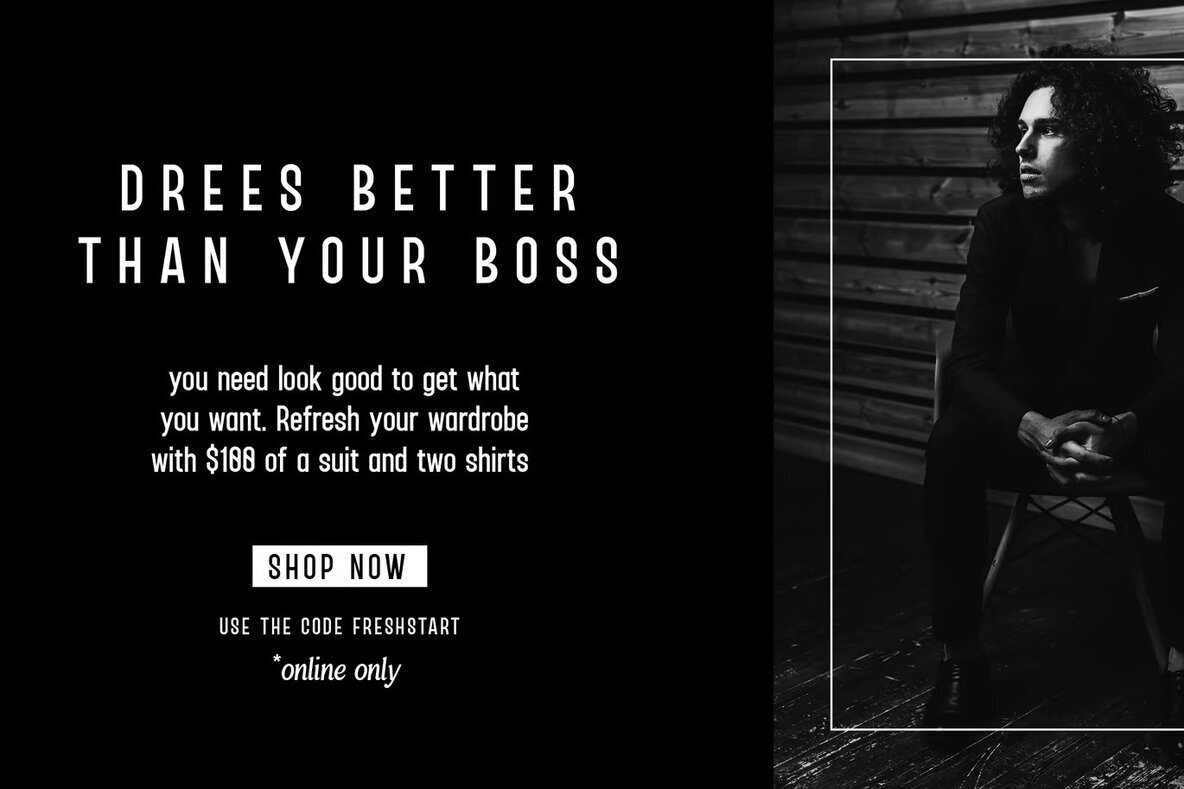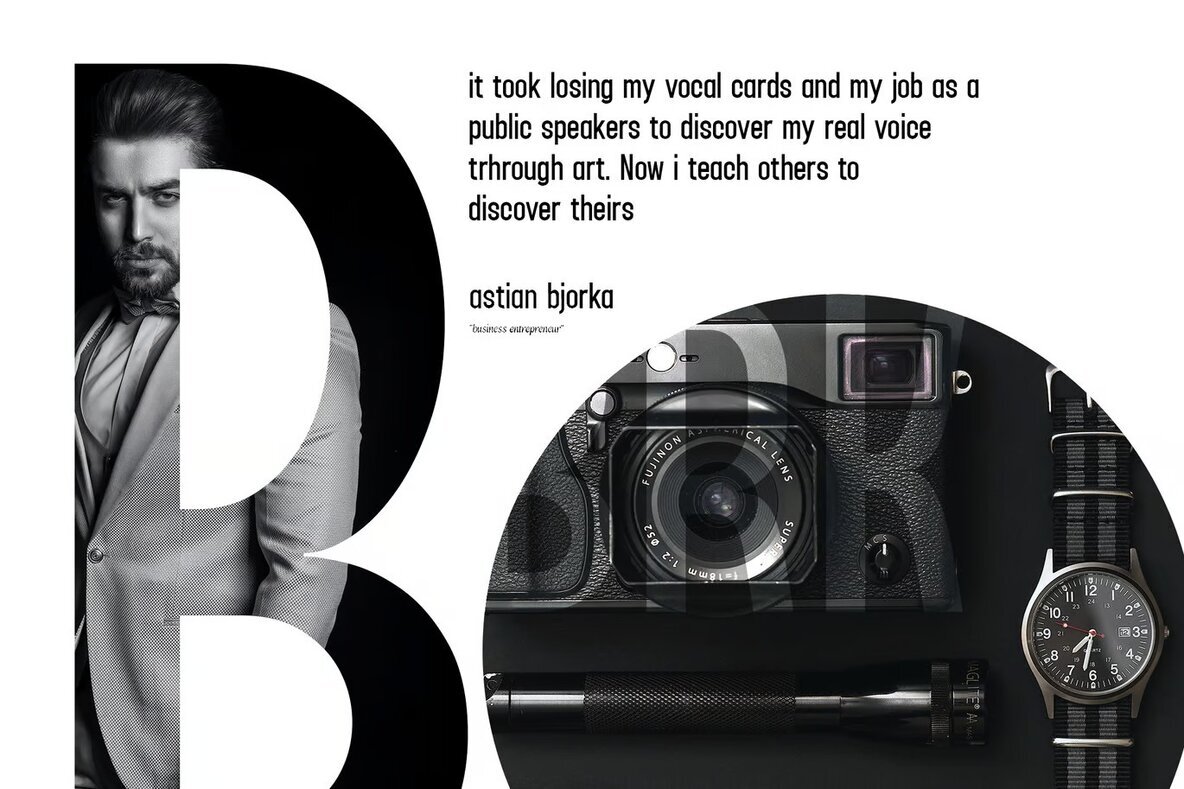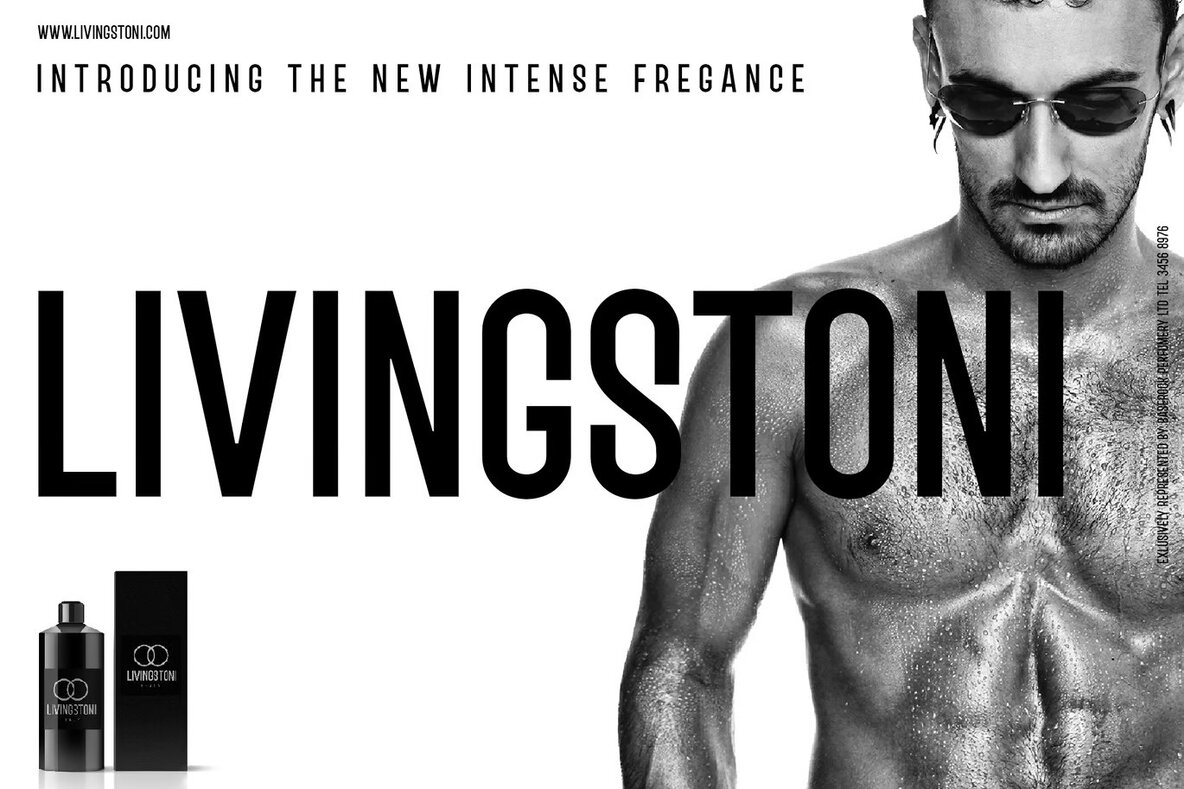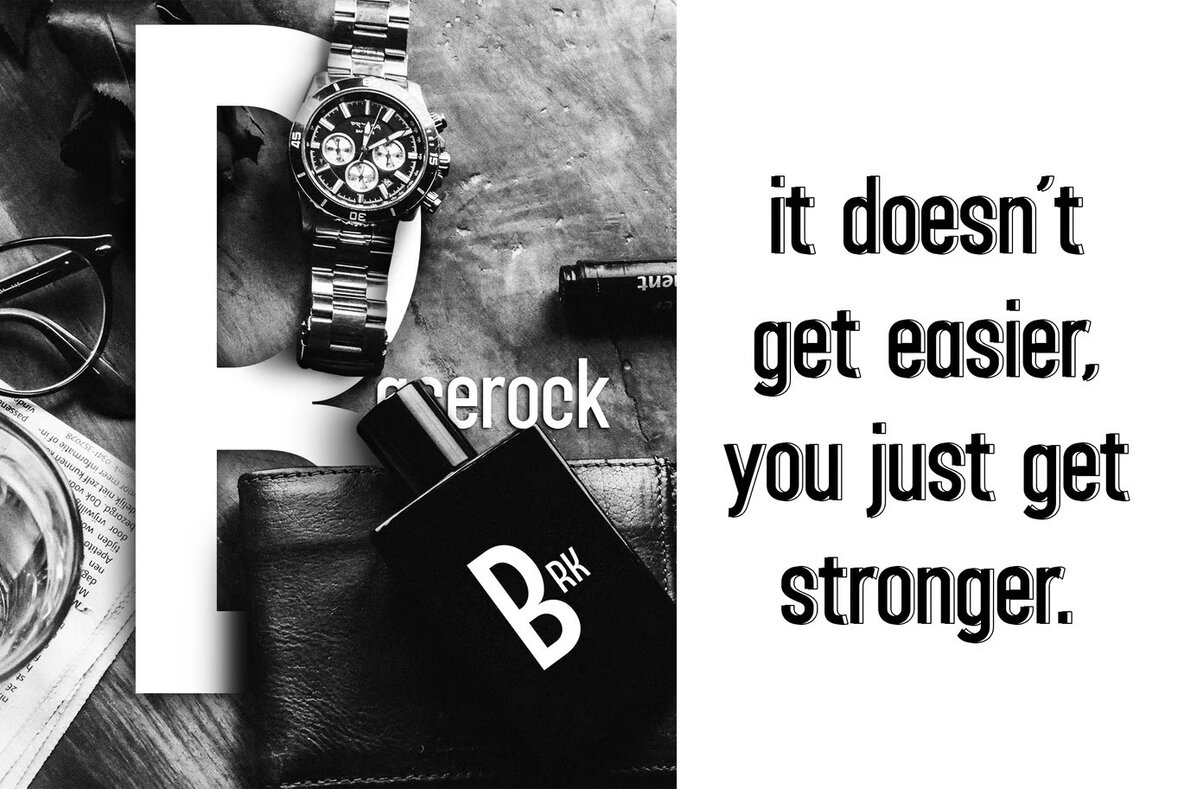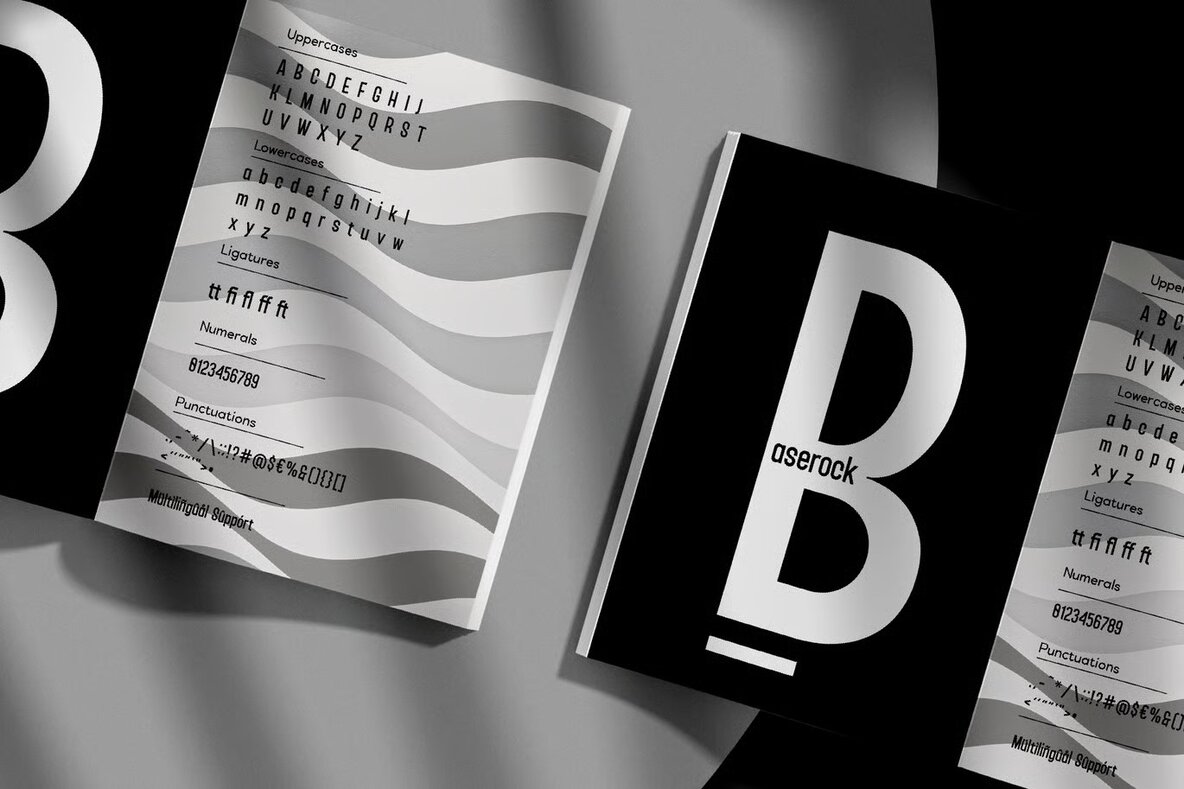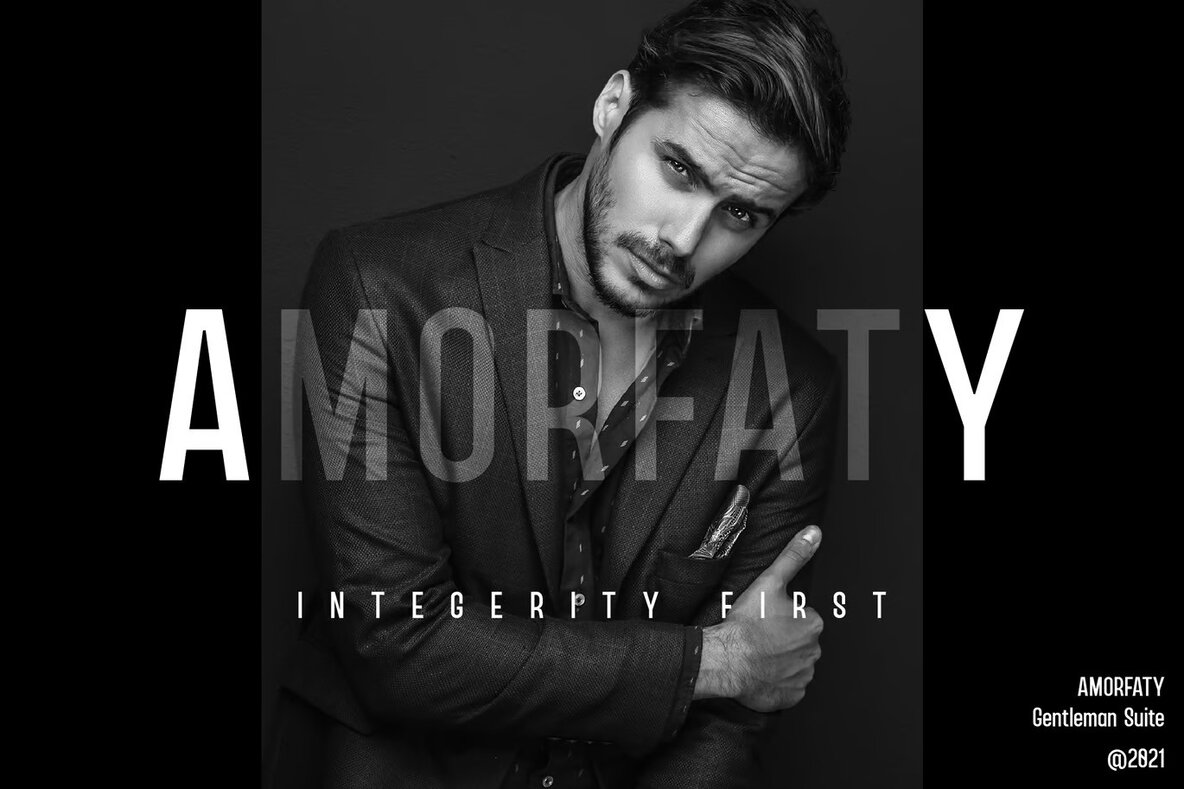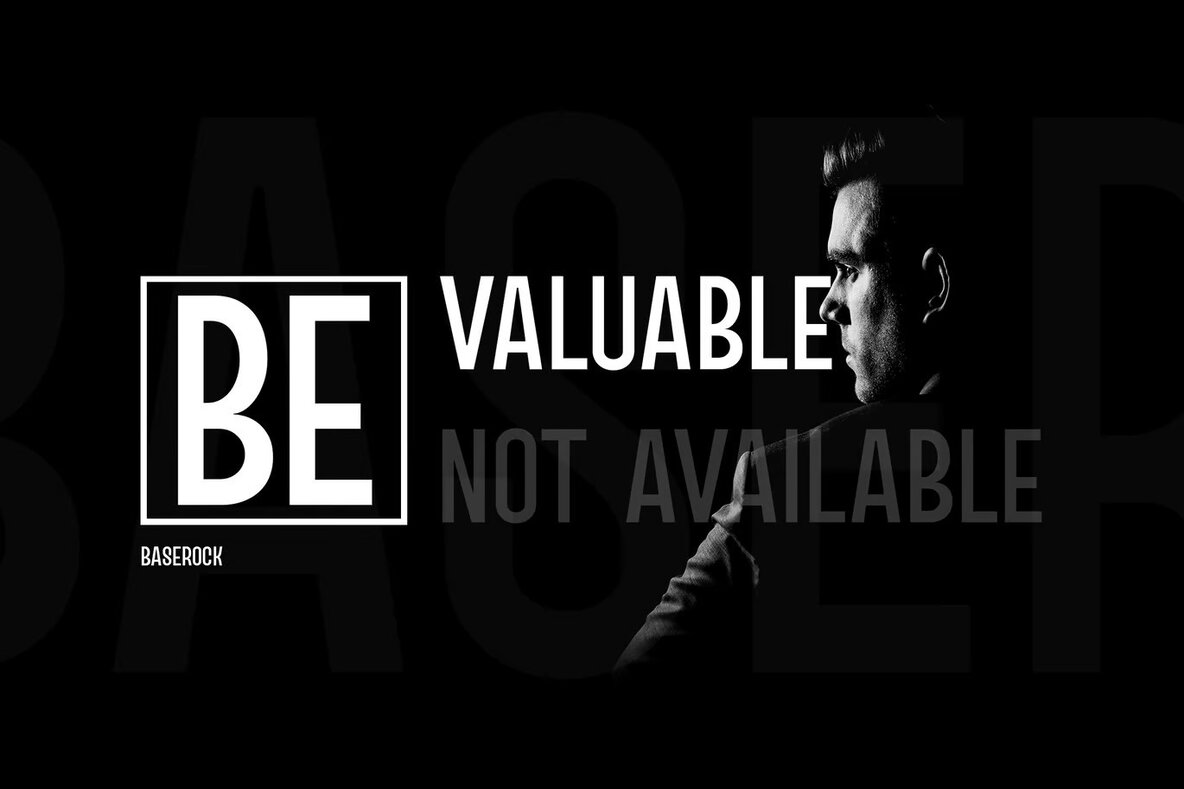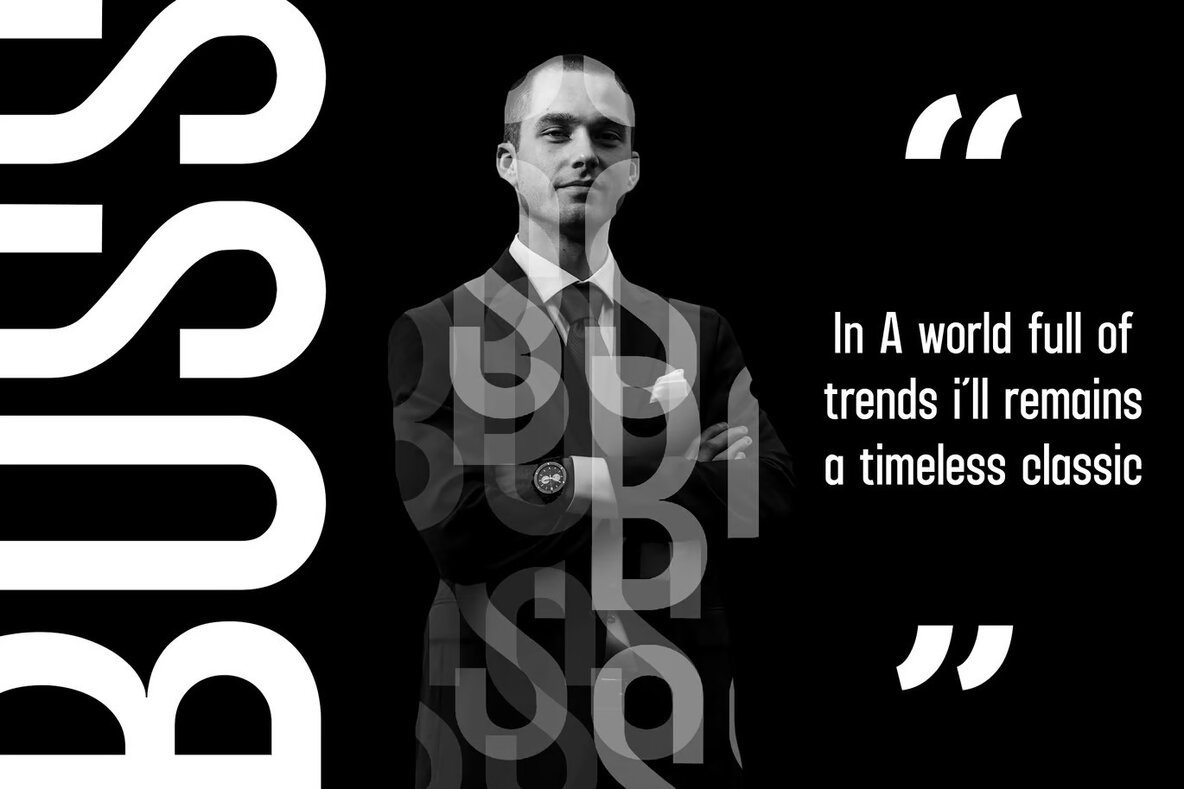
Baserock Font
Baserock Regular
Baserock, a bold condensed modern sans serif font, is an ideal choice for a variety of design projects. Its sleek and compact structure makes it suitable for logo branding, editorial design, and stationery, bringing a contemporary edge to creative works. From sports and fashion to gaming and blog design, Baserock enhances visual appeal with its distinctive style. Perfect for modern advertising, card invitations, and art quotes, it complements both digital and print media effortlessly.
Incorporate Baserock into your home decor, book covers, or titles for a modern touch. Its versatility shines in special events, offering a clean, bold aesthetic that stands out. With its condensed form, Baserock provides readability and impact, making it a valuable asset for any designer seeking to make a statement. Explore the potential of Baserock in crafting memorable designs that communicate effectively.